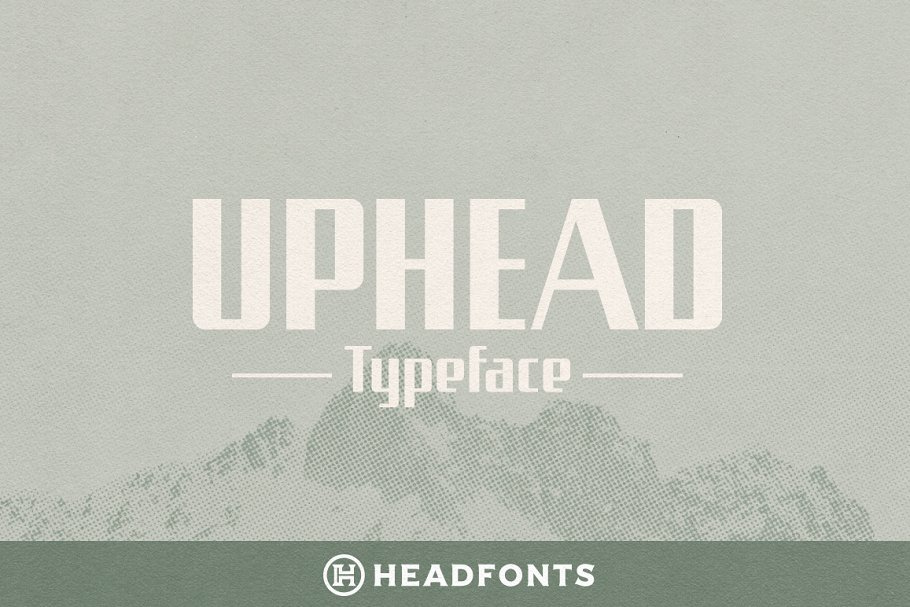
Uphead Font
This uplifting typeface is perfect for motivational brands, fitness companies, success coaching, positive campaigns, inspirational products, wellness centers, achievement graphics, personal development, and empowering design applications.
What makes this font exciting is its upward energy combined with motivational authenticity, offering designers an inspiring typeface that captures the essence of achievement while delivering optimistic sophistication and success-driven visual elevation.
The Uphead font family includes light, regular, medium, bold, heavy, and motivational variations, providing complete inspirational design solutions for creating uplifting positive visual identities.
Whether you're developing motivational coaching brands or crafting inspirational design experiences, Uphead Font Free Download brings exceptional uplifting atmosphere and motivational authenticity to every application. This inspiring typeface combines traditional success typography with contemporary achievement design, creating letterforms that inspire growth and celebrate personal excellence. The font's uplifting construction and motivation-ready details make it perfect for brands seeking immediate inspirational recognition.
Uphead Font features carefully engineered uplifting styling with authentic motivational character that conveys genuine success expertise. Each character has been designed with ascending proportions and positive elements that enhance the inspiring aesthetic. The font's motivational qualities make it particularly effective for coaching brands and wellness applications.
Professional designers choose Uphead Font for projects requiring authentic motivational credibility and uplifting atmosphere. Its success heritage makes it exceptionally well-suited for fitness centers, coaching services, and positive lifestyle brands. The font's versatile inspirational variations allow designers to control the motivational intensity, from subtle uplifting elegance to full achievement celebration.
The complete Uphead Font package offers extensive motivational ornaments and inspirational decorative elements that enhance the uplifting aesthetic. Advanced success features allow designers to create complex motivational effects with multiple achievement-inspired options. This comprehensive inspirational toolkit ensures designers have everything needed to create authentic motivational communications that celebrate the boundless power of positive thinking and upward success momentum.